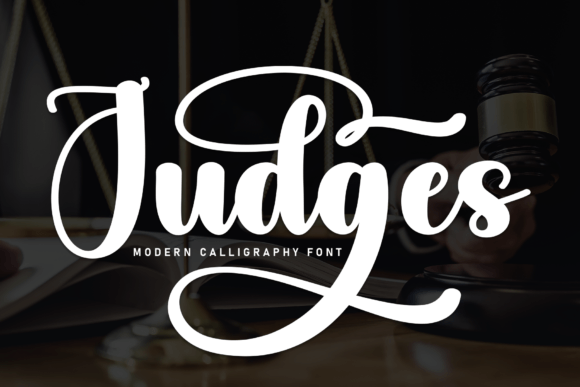
Unleash the Elegance and Creativity with Judges Font: A Journey into Calligraphic Beauty
In the realm of digital art, fonts hold the power to transform words into visual masterpieces, evoking emotions and captivating audiences. Among the vast world of typefaces, Judges Font emerges as a radiant gem, a script font meticulously crafted to infuse your creative projects with a touch of elegance and sophistication.
Picture this: a handwritten letter, penned with the grace and finesse of a master calligrapher, carrying words that dance upon the page, each letter an intricate work of art. With Judges Font, you can replicate this enchanting experience, breathing life into your digital creations. Its sweeping curves and delicate strokes lend an air of timeless beauty, reminiscent of ancient manuscripts and royal decrees.
Whether you're a seasoned designer seeking to elevate your projects or a passionate hobbyist yearning to add a personal touch to your creations, Judges Font is your perfect companion. Dive into a world of endless possibilities, where your imagination becomes the canvas and words transform into works of art.
Immerse yourself in the world of Judges Font and discover a font that:
* Captures the Essence of Calligraphy: Judges Font embodies the essence of traditional calligraphy, bringing the charm and artistry of handwritten letters to your digital projects.
* Adds a Touch of Elegance: Its graceful curves and delicate strokes elevate your designs, adding a touch of sophistication and timeless beauty.
* Perfect for Instagram and DIY Projects: Whether you're creating Instagram posts that captivate your followers or embarking on DIY projects that demand a personal touch, Judges Font is the perfect choice.
* Transforms Creative Ideas into Art: With Judges Font, your creative ideas take on a new life, transforming into stunning visual masterpieces that leave a lasting impression.
Step into the world of Judges Font and embark on a journey where creativity meets elegance, where words become art, and where your designs transcend the ordinary.